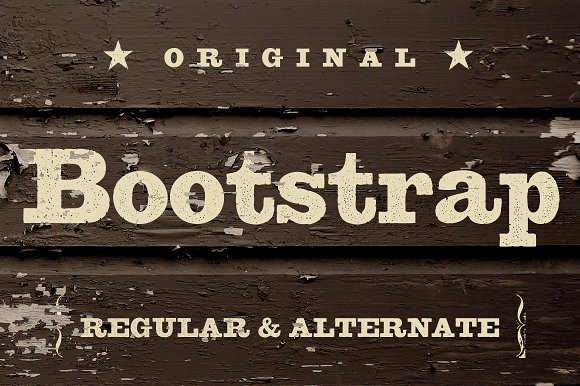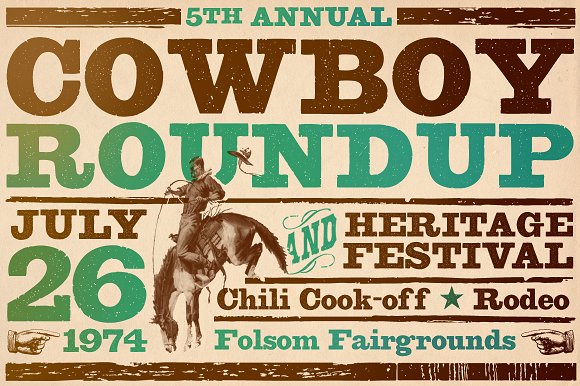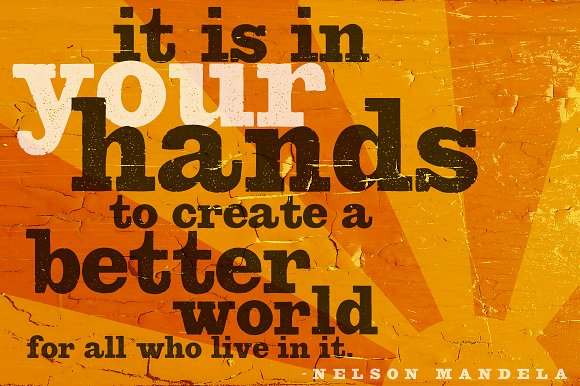
Bootstrap font
Broken in but none the worse for wear, Bootstrap™ and less distressed companion Bootstrap Alternate each use OpenType features to automatically substitute a unique pair of characters when any upper or lower case letter is keyed twice in a row, as well as features for Old Style Numerals and Small Caps. Both fonts are available as a set or individually: